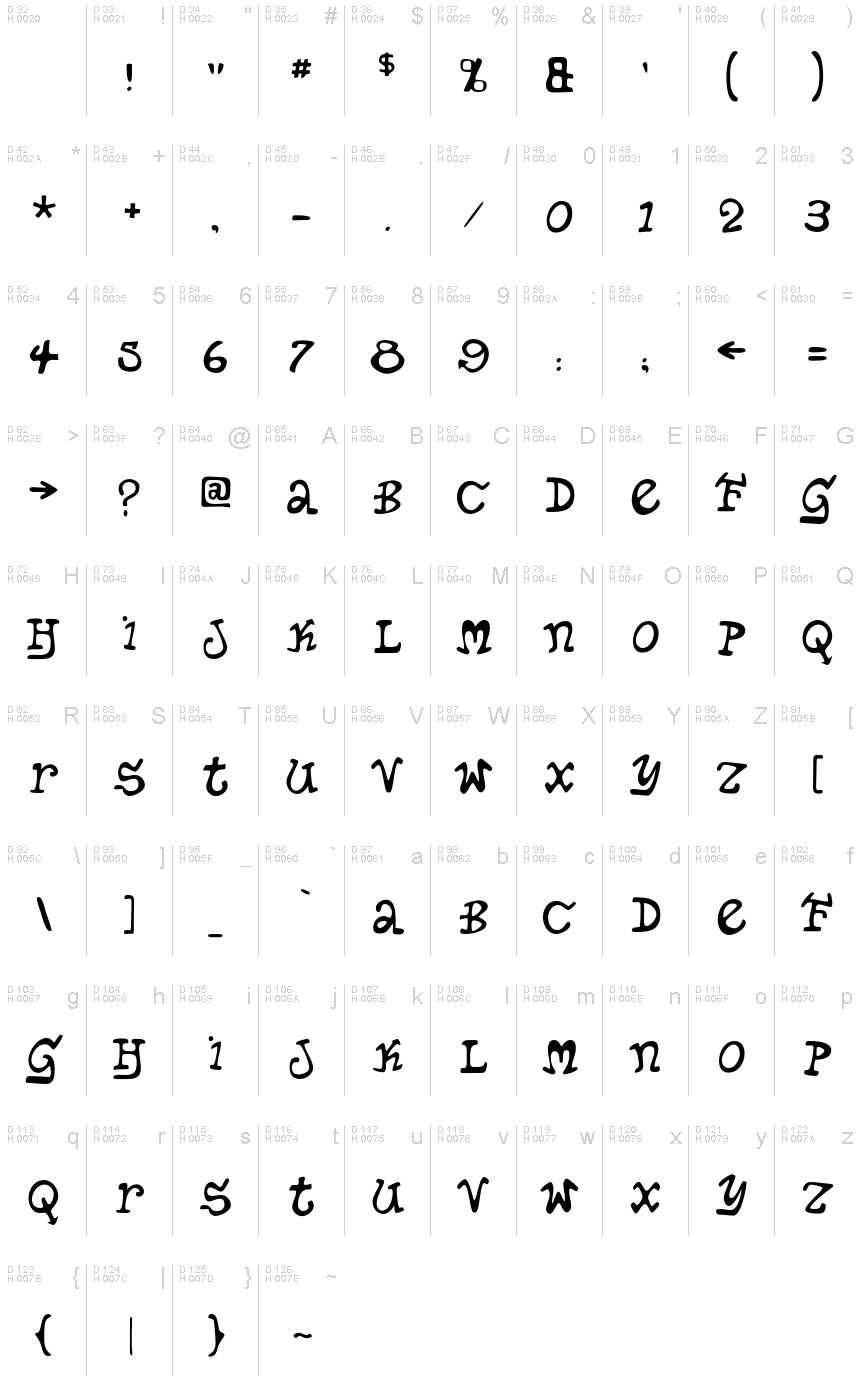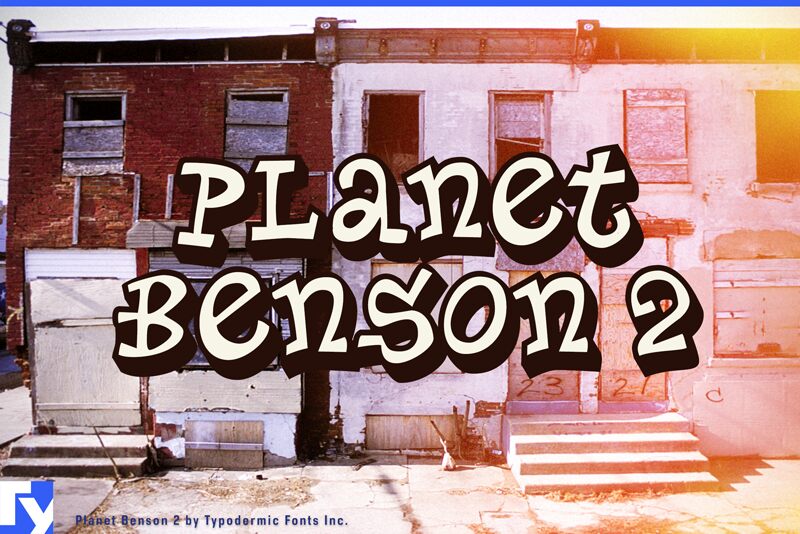
PlanetBensonTwoFront-Regular
Planet Benson Two Front, a creation from the talented designer Typodermic Fonts, is a captivating graffiti-inspired typeface that exudes a bold and unapologetic charm. Reminiscent of amateur suburban scrawlings, this font's unique aesthetic captures the raw, unrefined essence of street art, inviting viewers to embrace its imperfect allure. With its dynamic strokes and organic textures, Planet Benson Two Front effortlessly conveys a sense of energy and unbridled expression, making it a compelling choice for projects seeking a distinct, eye-catching typographic presence.
The versatility of Planet Benson Two Front allows it to shine in a variety of design contexts, from gritty urban branding campaigns to edgy editorial layouts. Its robust, unrestrained character lends itself particularly well to attention-grabbing headlines, impactful event posters, and bold typographic compositions that demand to be noticed. Whether you're seeking to infuse your designs with a raw, DIY-inspired aesthetic or simply want to make a bold typographic statement, Planet Benson Two Front by Typodermic Fonts is a captivating choice that is sure to leave a lasting impression.
Planet Benson Two Front